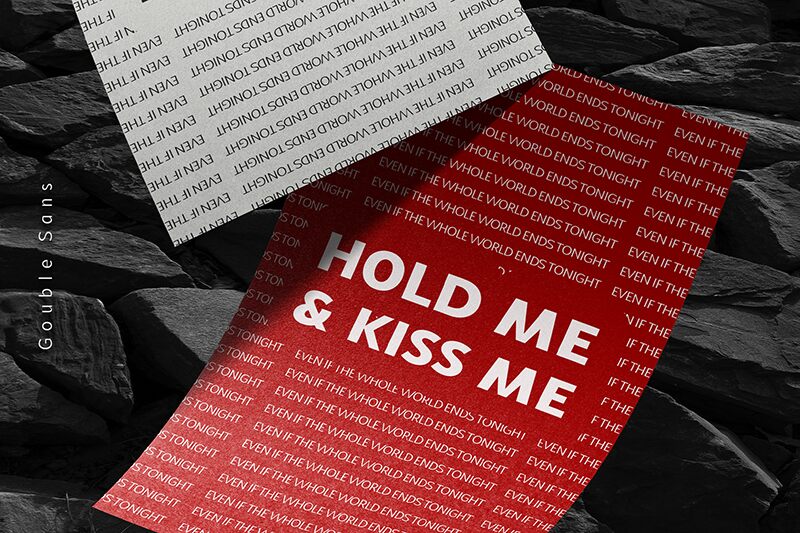
CF Gouble font family designed and published by Creatifont Studios is a free sans-serif font for personal use. It is a clean and modern set of letterforms that is highly versatile and easily adaptable. Its approachable and impactful appearance empowers users to create functional and clear designs.
The font proves useful in typography designs aimed at sending a public message such as editorials, press magazines, and posters. Other branding or digital use options include ads, websites, blogs, titles, packaging, and more. More options like invitations and book covers are possible as well.